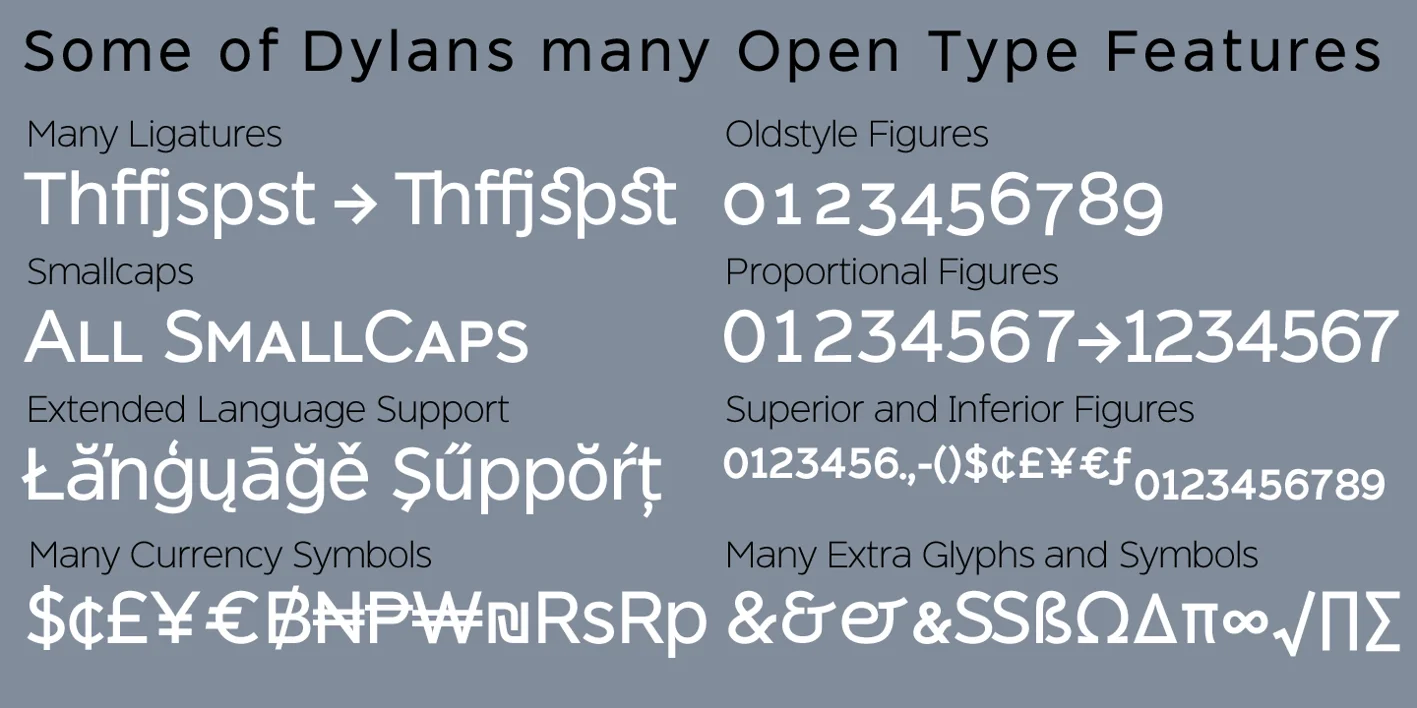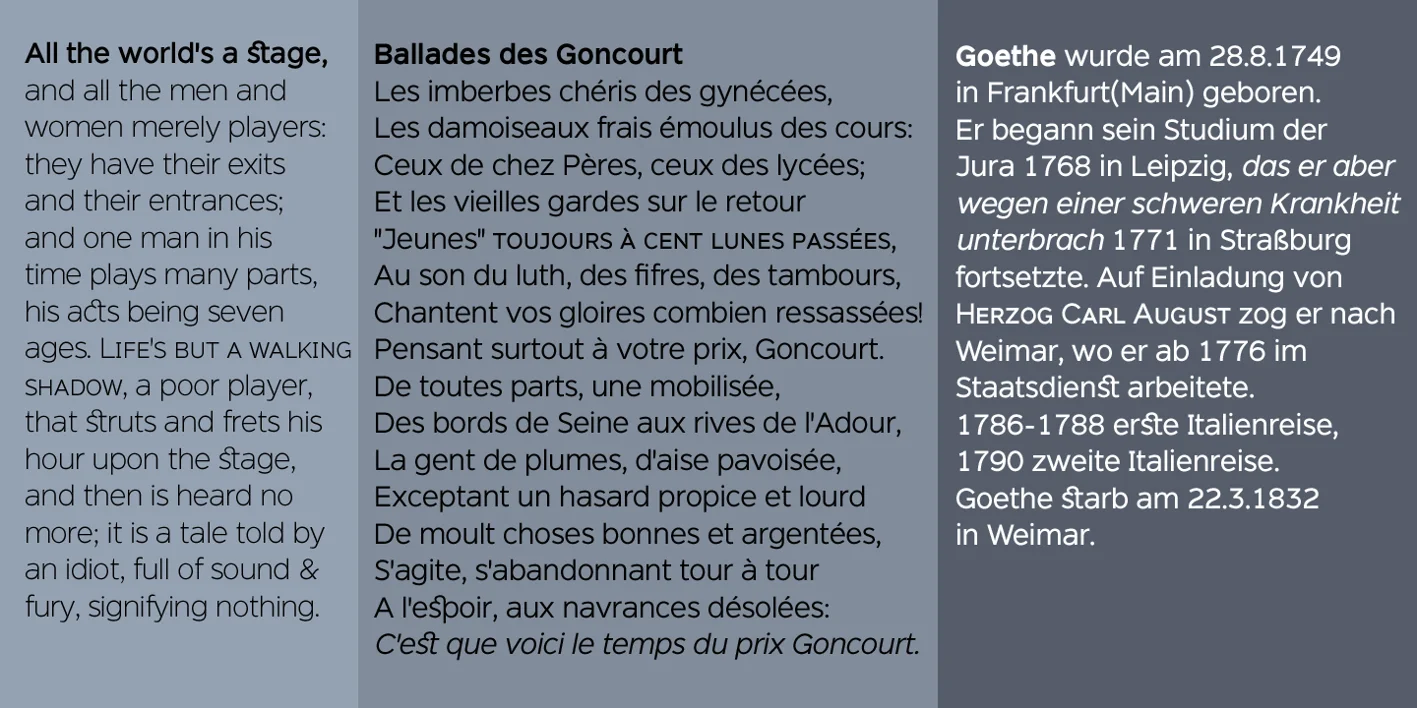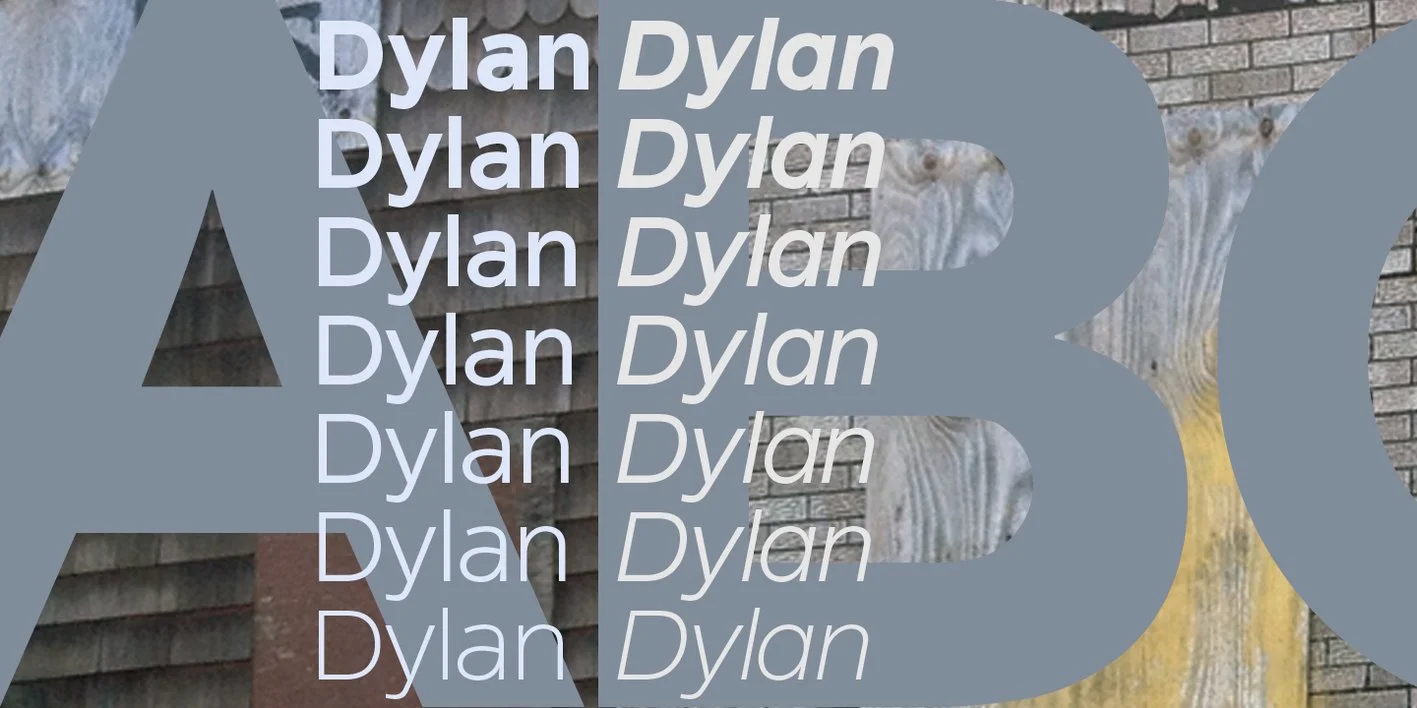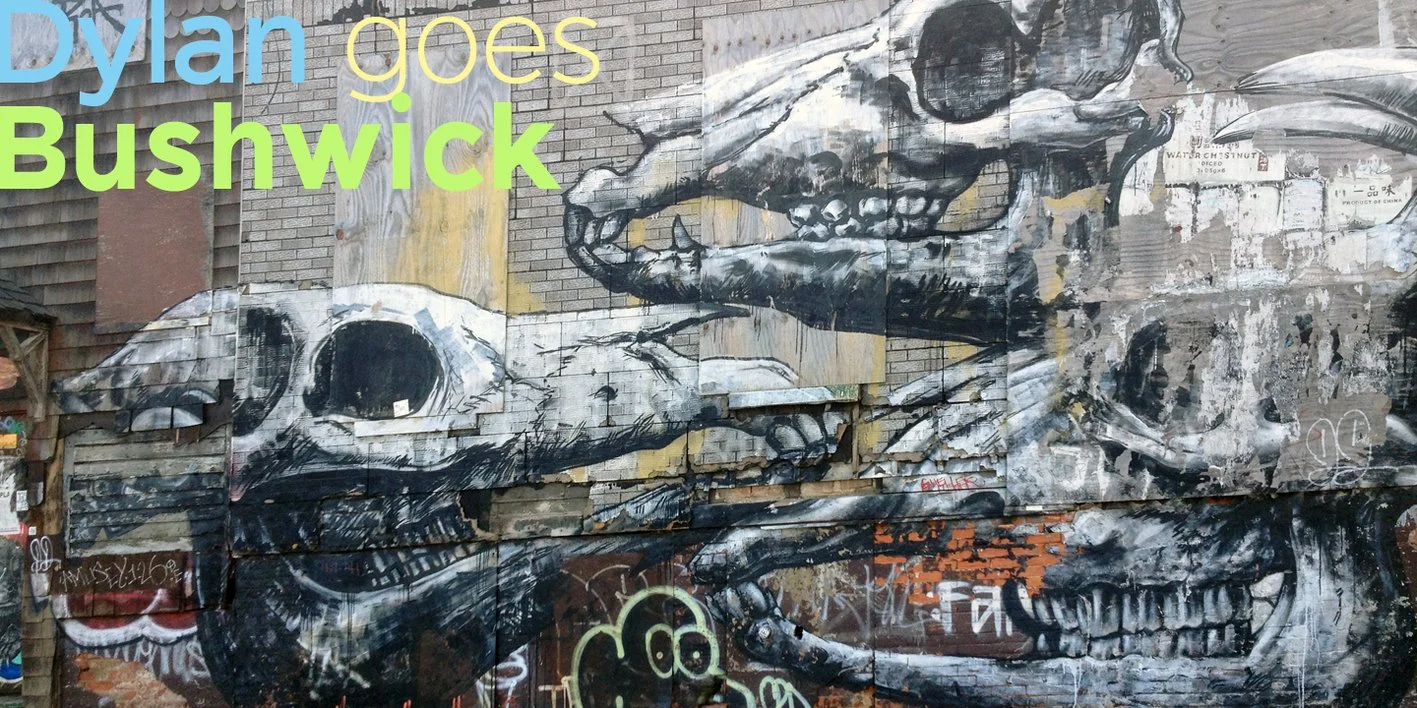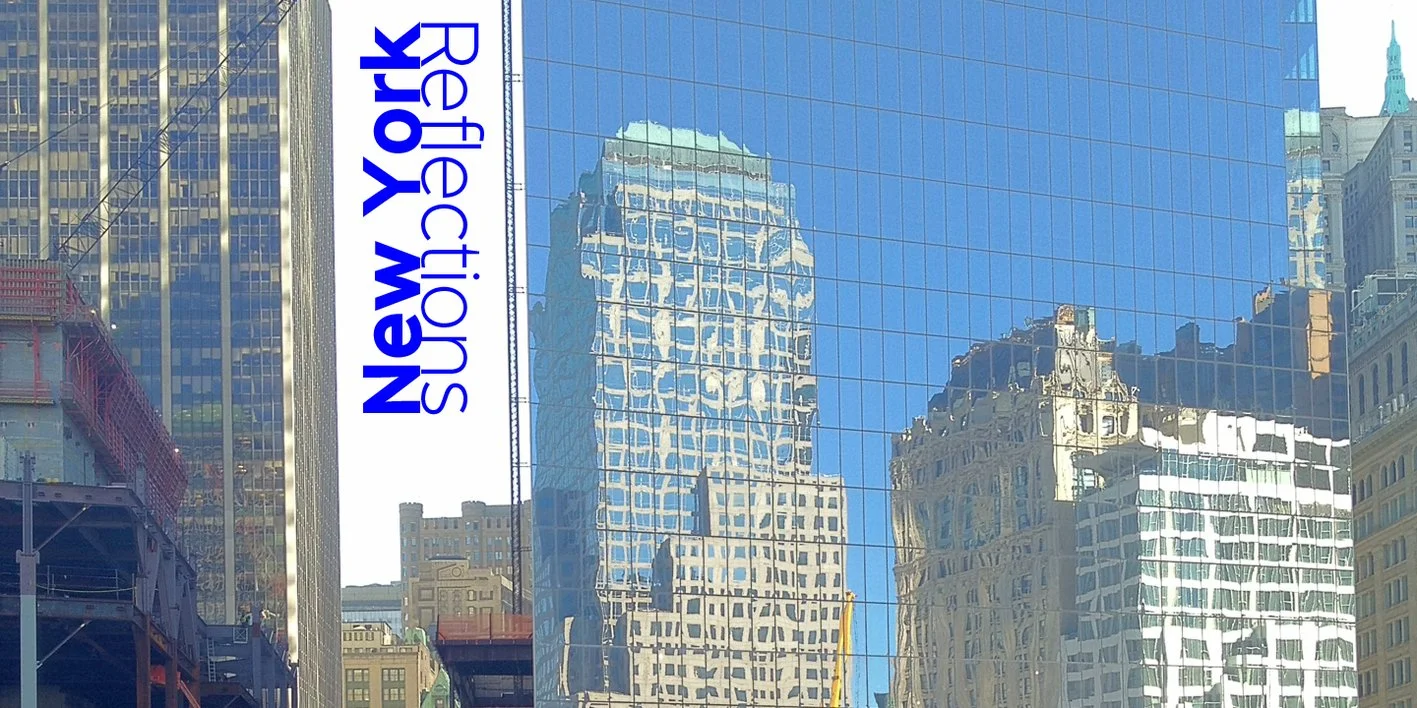
Dylan Font
When a design brief calls for both optical balance across all weights and immediate visual impact, type choices matter — Dylan answers that brief. The typeface brings a versatile sensibility to a broad range of creative disciplines, with strong typographic hierarchy support that holds up whether the work is print-first or screen-first.
In practice, Dylan proves particularly effective for social media graphics, annual reports, editorial layouts, logo design, advertising campaigns. Designers reaching for it find that the type decisions feel resolved rather than laboured — a useful quality when client timelines are tight.
Spacing and kerning pairs have been individually reviewed for the most common letter combinations in English and major European languages. The result is even type colour across continuous text, with no awkward gaps or collisions between adjacent characters.
The range of applications extends to poster creation, web design, signage systems, environmental graphics. That breadth is deliberate: the proportions and spacing were stress-tested across a wide range of mock briefs before the typeface was finalised.
The consistent rhythm of Dylan across a full paragraph creates the kind of even grey value that makes extended reading comfortable, a detail that matters more in long-form content than its subtlety might suggest.
Independent studios handling packaging and editorial work find Dylan a reliable choice for projects that demand both personality and restraint. The design avoids the self-conscious quirkiness that dates quickly, settling instead for considered distinctiveness that holds up over time.